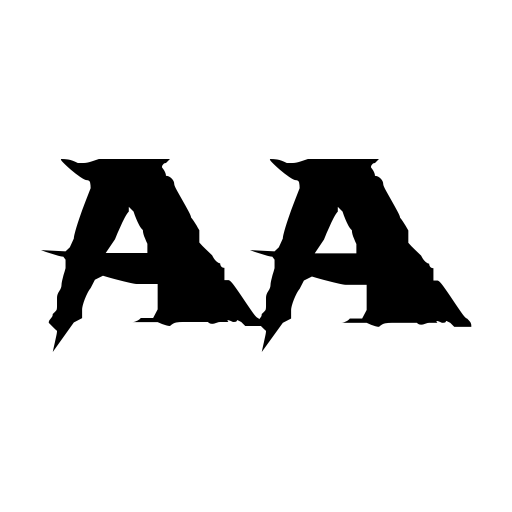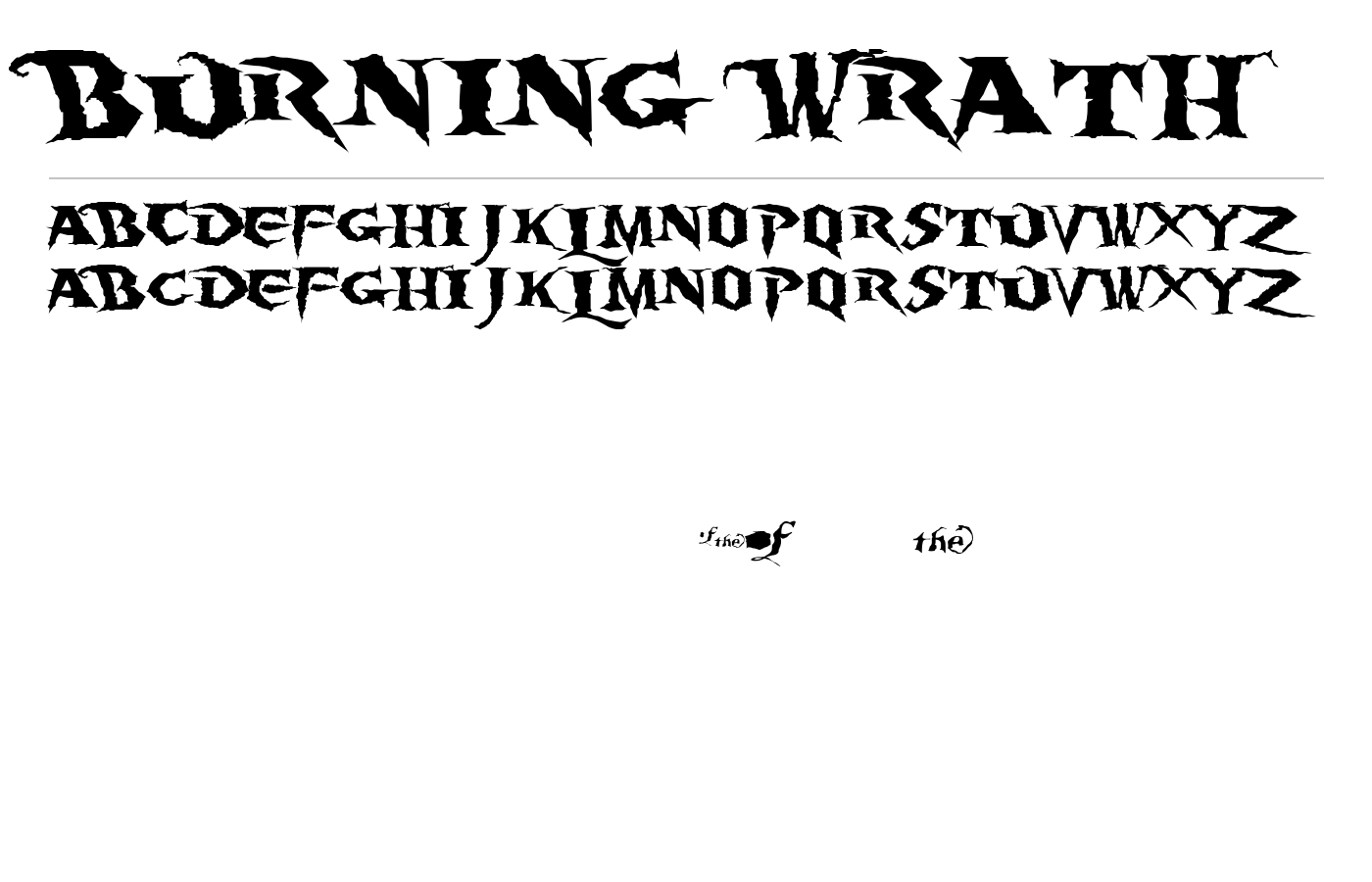
Burning Wrath is a bold, dramatic display font with sharp, jagged edges that evoke a sense of intensity and raw energy. Its heavy weight and irregular, spiked letterforms give it a rebellious, gothic vibe perfect for eye-catching headlines, posters, or branding that aims to convey power and dark flair. This font works best in contexts where a striking, atmospheric impact is needed rather than for body text or subtle uses.
Burning Wrath Font
About Burning Wrath Font